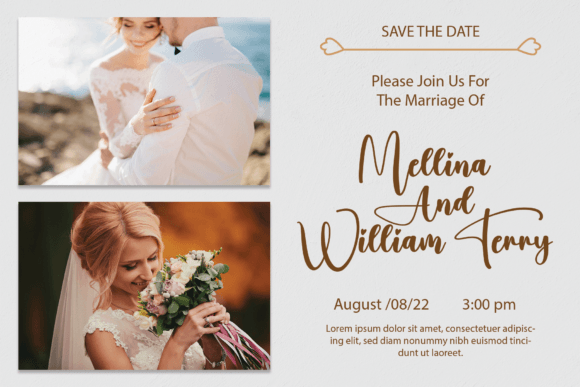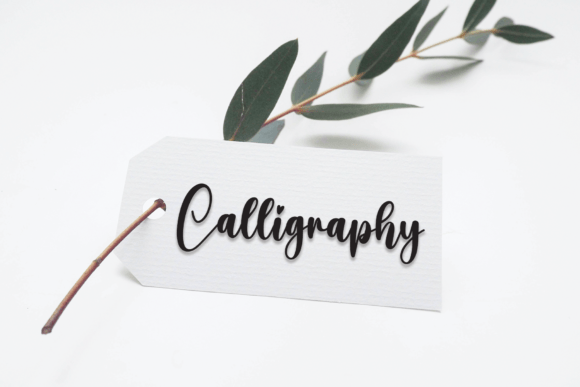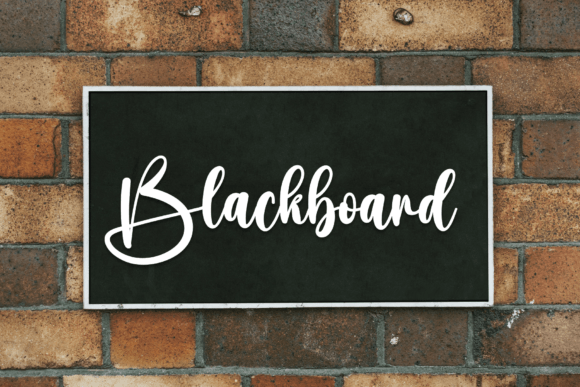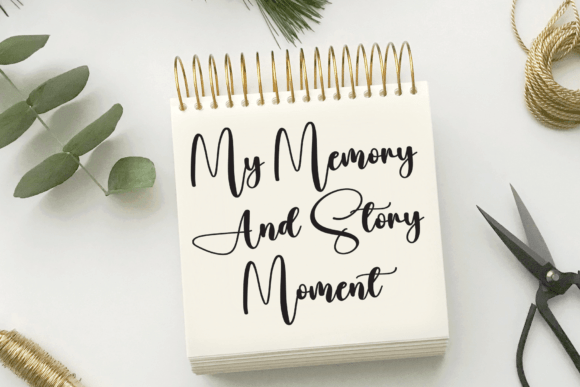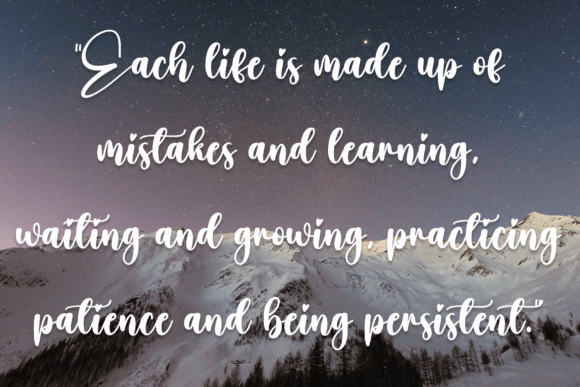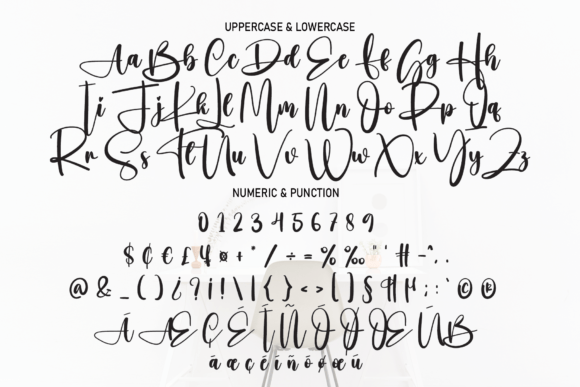
Introducing Already Font: The Perfect Handwritten Touch for Your Designs
Are you looking for a font that adds a personal and elegant touch to your designs? Look no further than Already Font! This lovely handwritten font is perfect for a wide range of projects, from wall displays and wedding invitations to social media posts and product packaging.
What Makes Already Font So Special?
Already Font is a beautifully crafted handwritten font that exudes warmth and sophistication. Its elegant and flowing script makes it perfect for designs that require a personal touch. Whether you’re a designer, crafter, or DIY enthusiast, Already Font is sure to become your go-to font for all your creative projects.
Uses for Already Font
The versatility of Already Font is one of its standout features. Here are just a few examples of how you can use this amazing font in your designs:
- Wall Displays: Create stunning wall art with Already Font. Use it to design inspirational quotes, fun phrases, or personalized messages that make perfect additions to any room.
- Wedding Invitations: Make your wedding invitations truly special with Already Font. Its elegant script is perfect for formal or informal wedding invitations, and can be used to create beautiful save-the-date cards, RSVP cards, and more.
- Social Media Posts: Add a personal touch to your social media posts with Already Font. Use it to create eye-catching graphics, inspirational quotes, or fun phrases that will engage your followers and make your posts stand out.
- Logos and Branding: Already Font is perfect for creating unique and memorable logos for your business or brand. Its elegant script can be used to create a professional and sophisticated look that’s sure to impress.
- Advertisements: Use Already Font to create stunning advertisements that grab attention and leave a lasting impression. Its elegant script is perfect for creating eye-catching headlines, taglines, and more.
- Product Packaging: Add a personal touch to your product packaging with Already Font. Use it to create beautiful labels, stickers, and other packaging materials that will make your products stand out.
- Product Designs: Already Font is perfect for creating stunning product designs, from t-shirts and mugs to phone cases and tote bags. Its elegant script can be used to create unique and memorable designs that will appeal to customers.
- Labels and Photography: Use Already Font to create beautiful labels and watermarks for your photos. Its elegant script is perfect for adding a personal touch to your photography and making it stand out.
- Invitations and Stationery: Already Font is perfect for creating beautiful invitations, stationery, and other paper crafts. Use it to design wedding invitations, birthday cards, and other special occasion invitations that will make a lasting impression.
Why Choose Already Font?
So why choose Already Font for your designs? Here are just a few reasons why this amazing font is a must-have for designers and crafters:
- Elegant and Sophisticated: Already Font has an elegant and sophisticated look that’s perfect for designs that require a personal touch.
- Versatile: Already Font is versatile and can be used in a wide range of projects, from wall displays and wedding invitations to social media posts and product packaging.
- High-Quality: Already Font is a high-quality font that’s designed to look great on any device or medium.